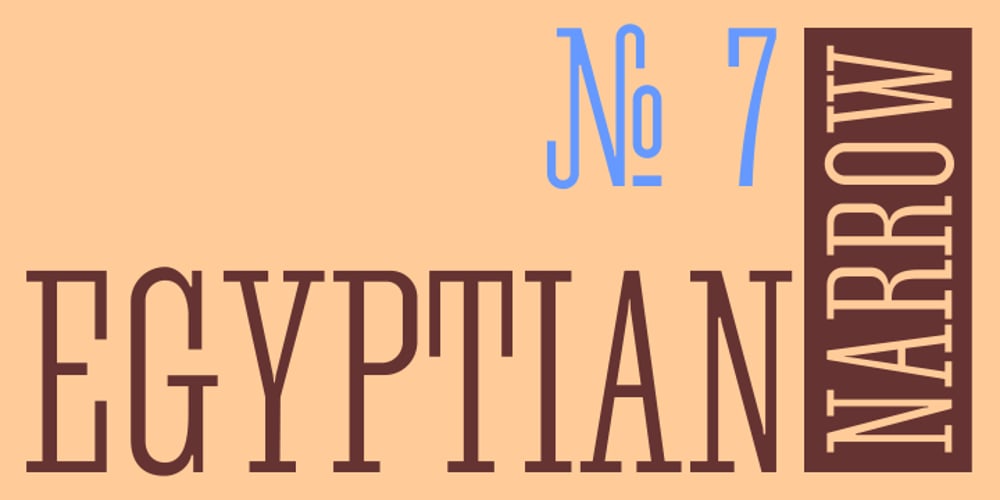
Aegipti 7 Font Family was designed by Fedir Shulga and published by 2D Typo. Aegipti 7 contains 1 styles and family package options. Aegypti 7 is a digital revival of Font No.7 or Egyptian Narrow – a Soviet display face cast for hand composition. I settled on the 12pt version as a basis for my digital version, as larger sizes added too much contrast to an otherwise quite orderly slab serif. The Soviet Font No.7 itself was based on an older Semi-Egyptian narrow cut before the revolution.